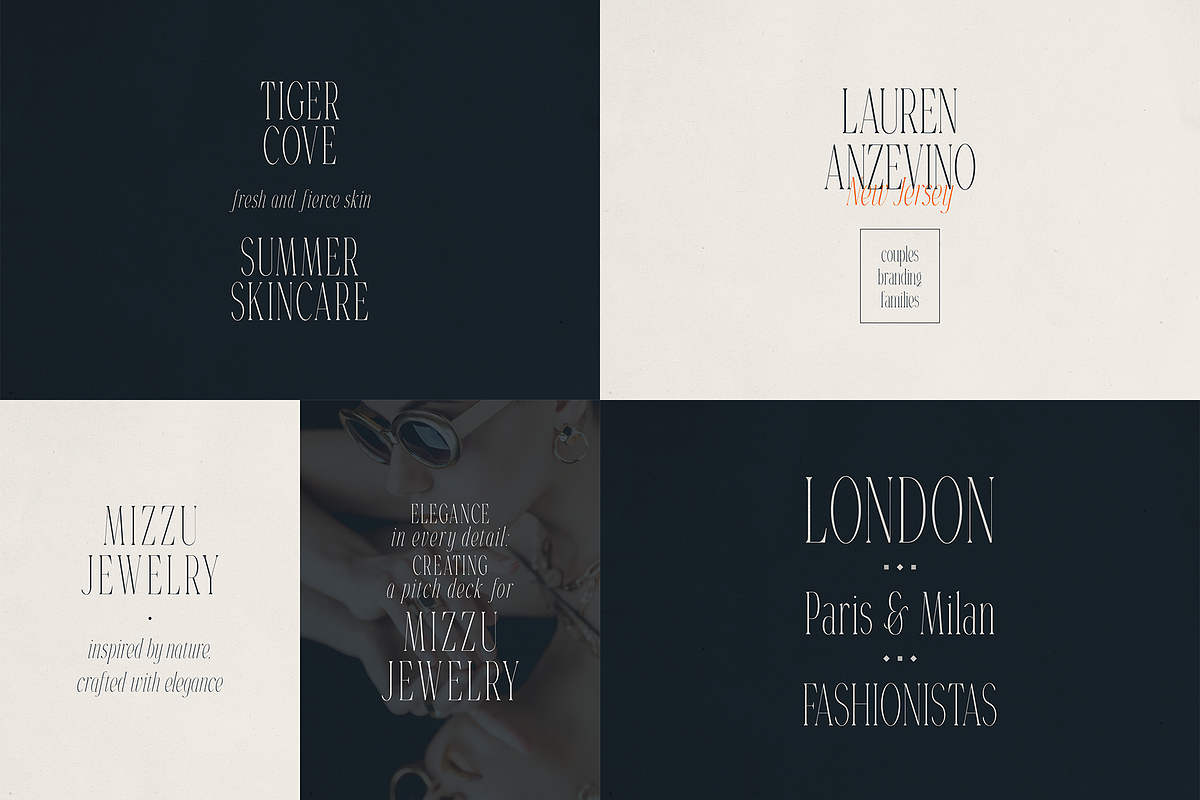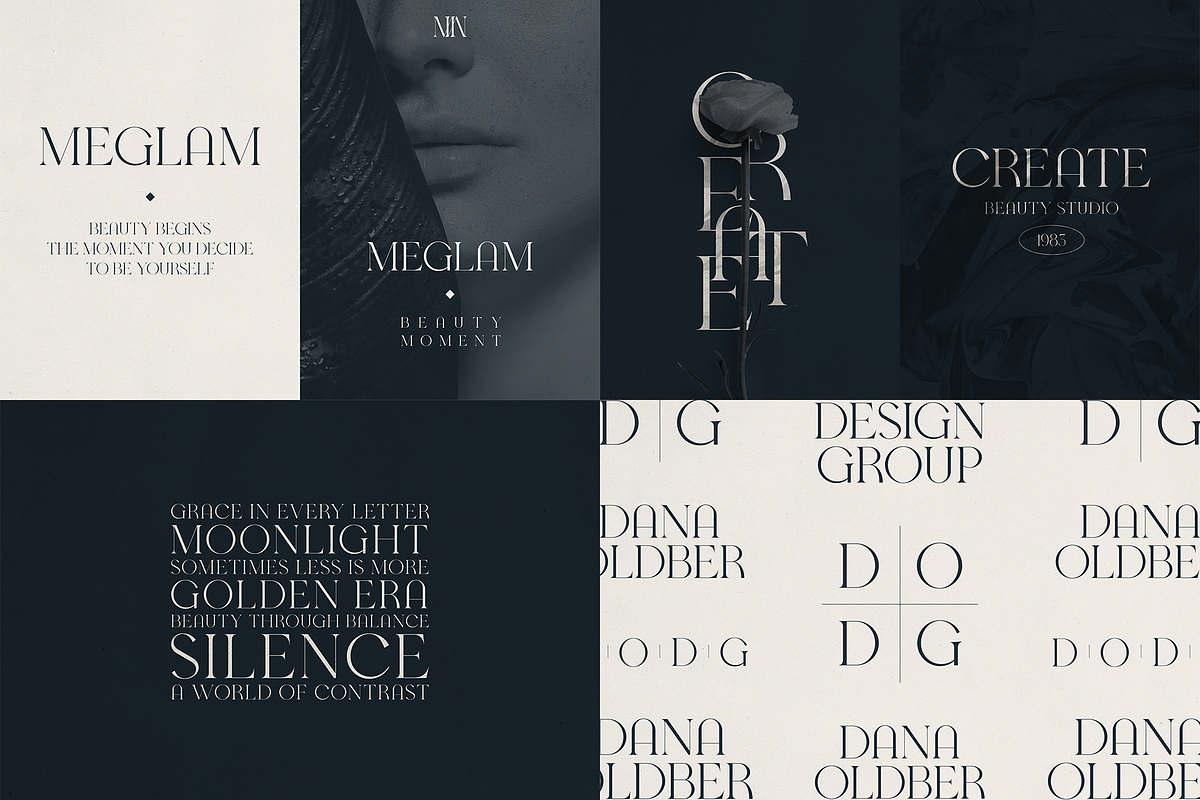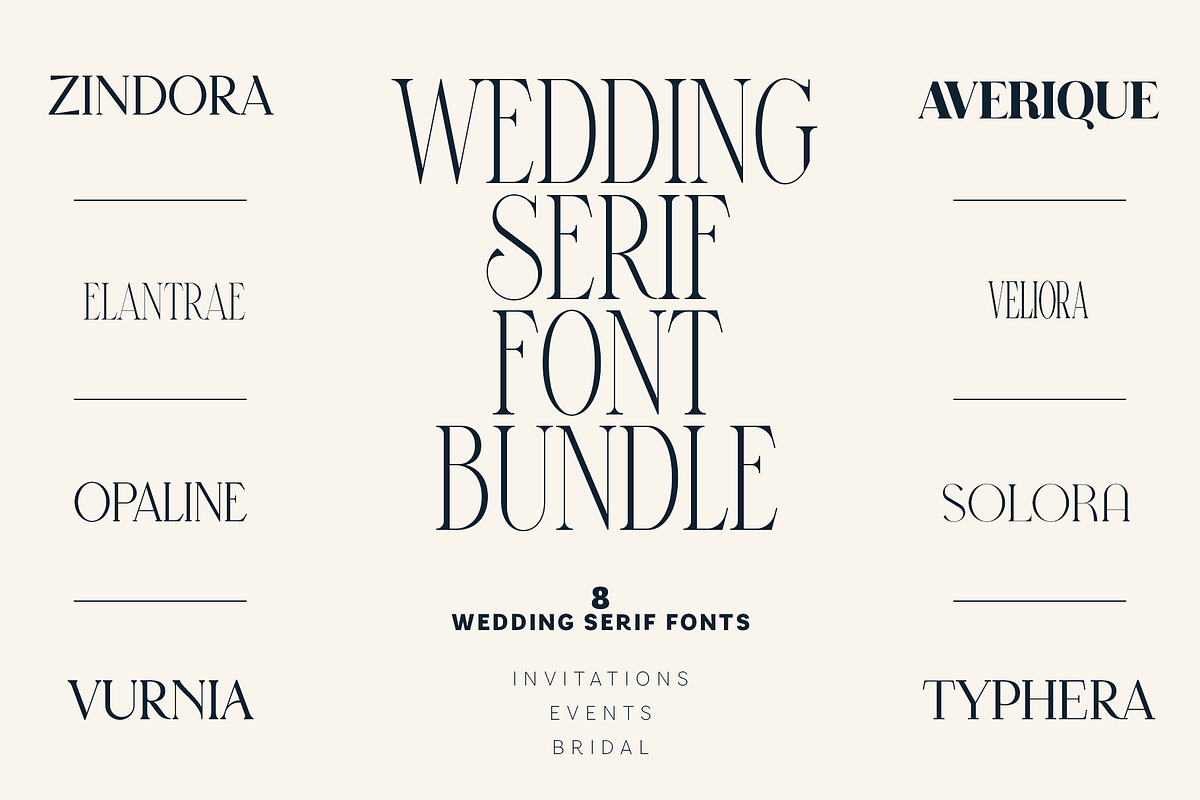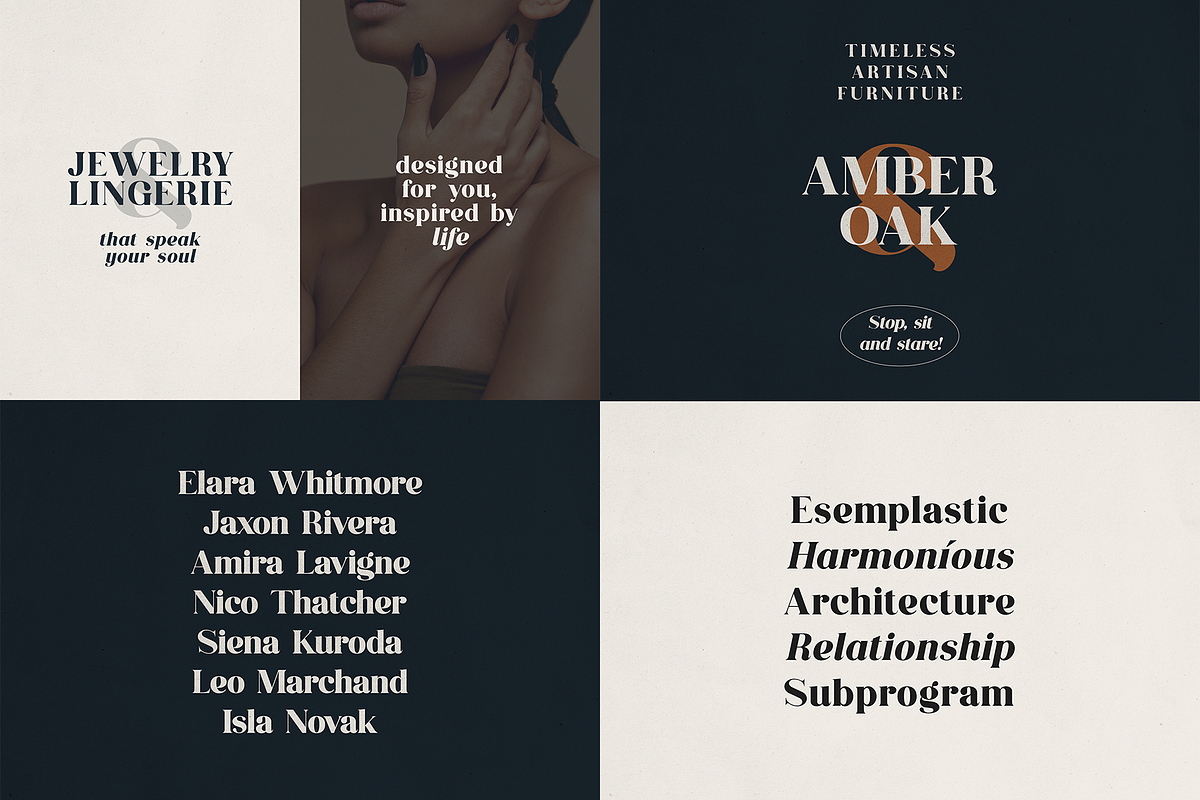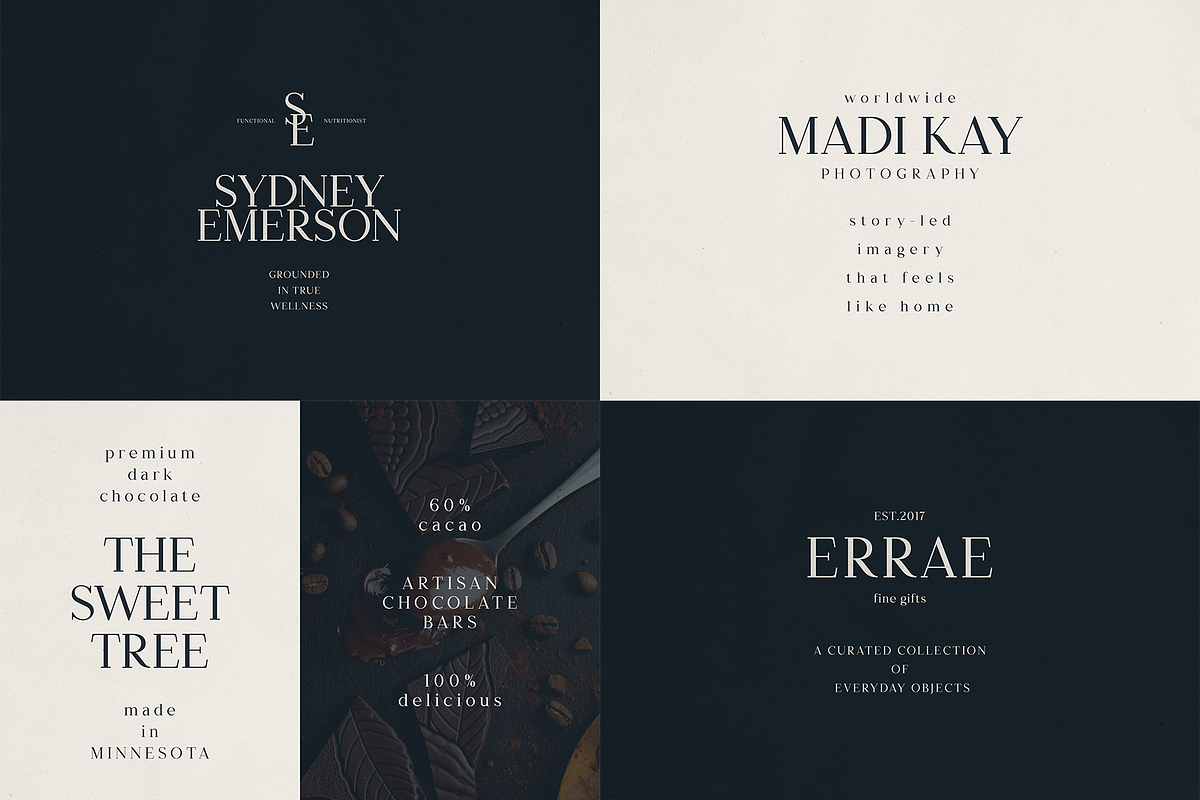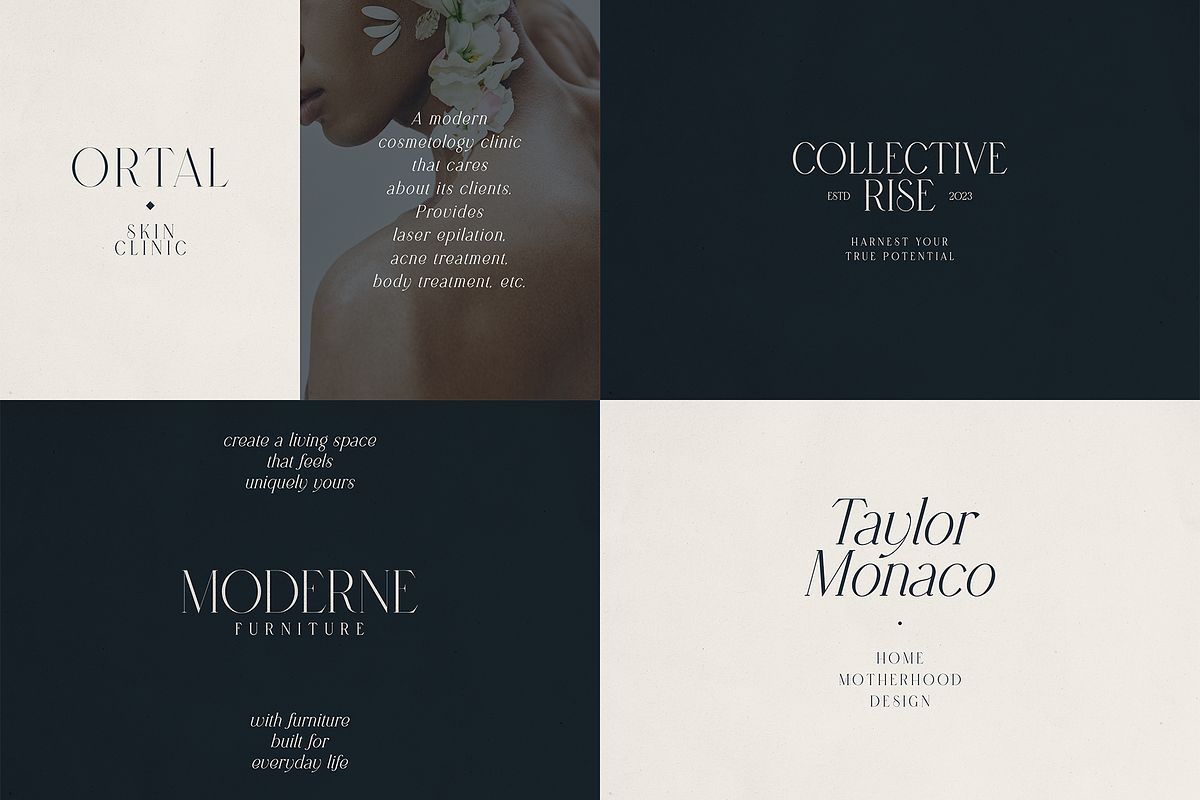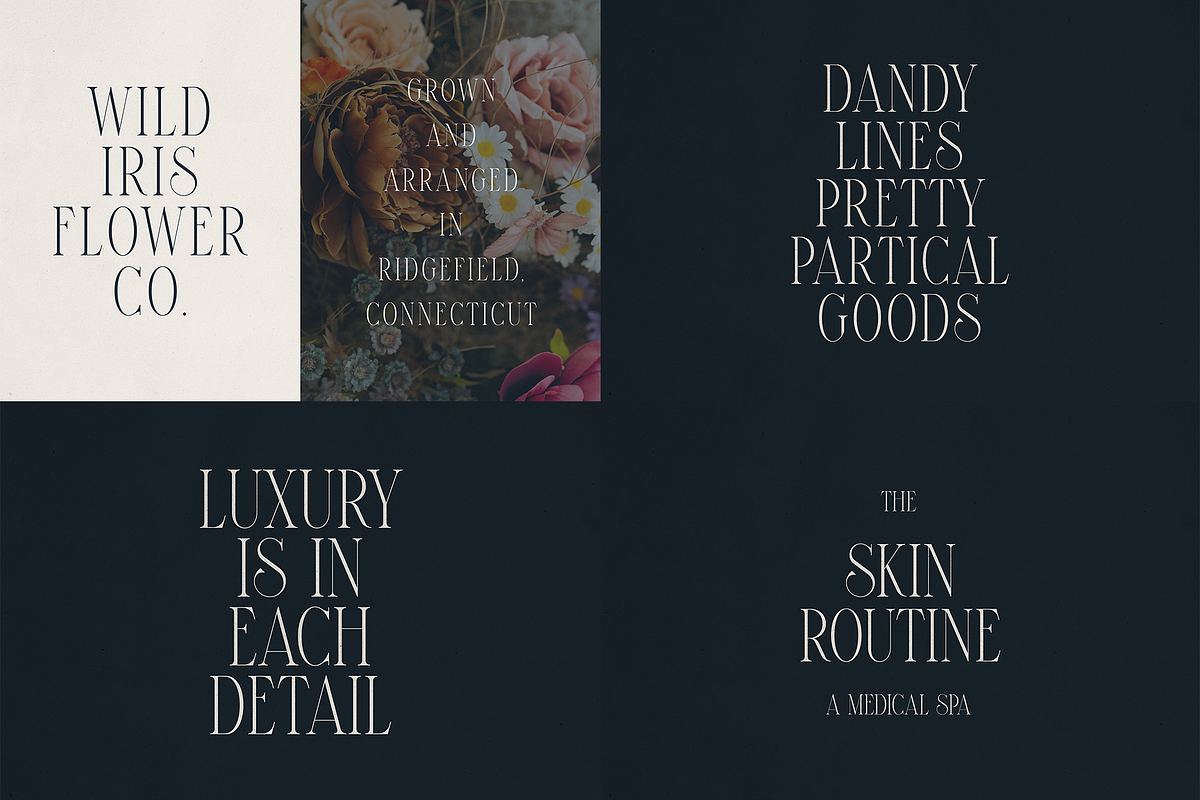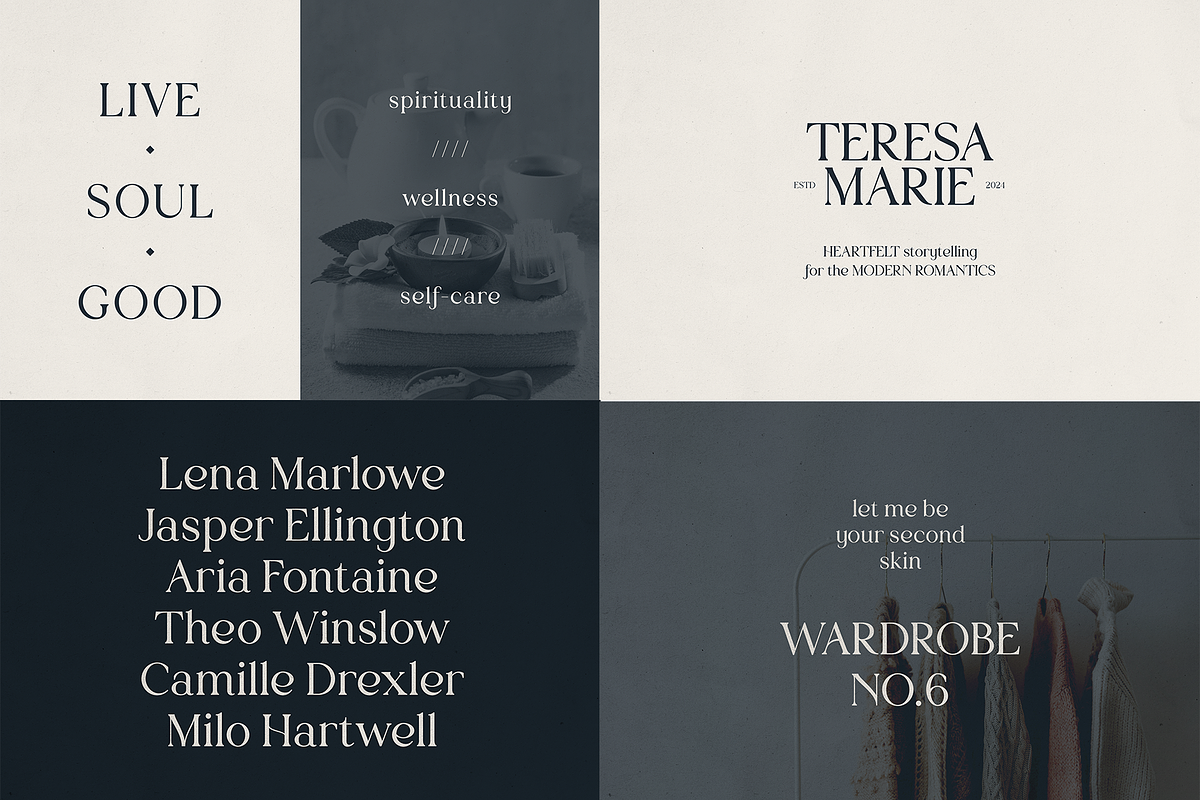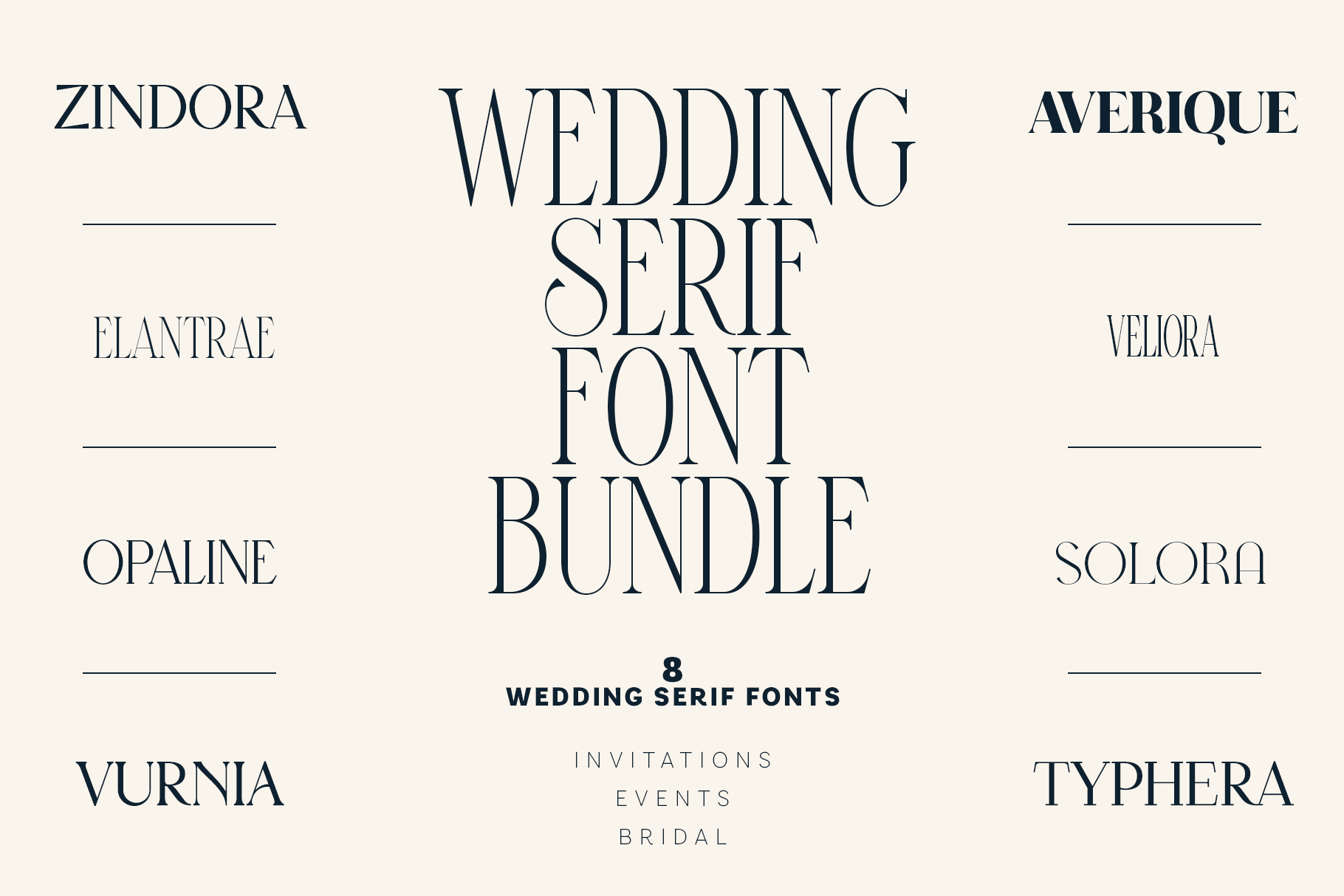
Wedding Serif Font Bundle - 8 Fonts
Create elegant wedding stationery, romantic branding and timeless editorial designs with the Wedding Serif Font Bundle - a curated collection of 8 sophisticated serif typefaces.
From delicate invitations and save-the-dates to menus, table numbers, event signage, logos, packaging and magazine layouts, this versatile font bundle gives you a beautiful selection of refined serif styles in one collection. Each font has its own distinctive personality while sharing a polished, romantic aesthetic, making them easy to combine across a complete wedding suite or cohesive brand identity.
Zindora
Elantrae
Opaline
Vurnia
Averique
Veliora
Solora
Typhera
Wedding invitations and save-the-dates
Bridal and event stationery
Menus, table numbers and signage
Wedding planners, florists and photographers
Beauty and feminine branding
Logos, packaging and social media
Fashion and romantic editorial design
Magazines, lookbooks and art direction
Build graceful wedding designs and memorable brand identities with eight elegant serif fonts created to bring romance, sophistication and timeless beauty to every project.